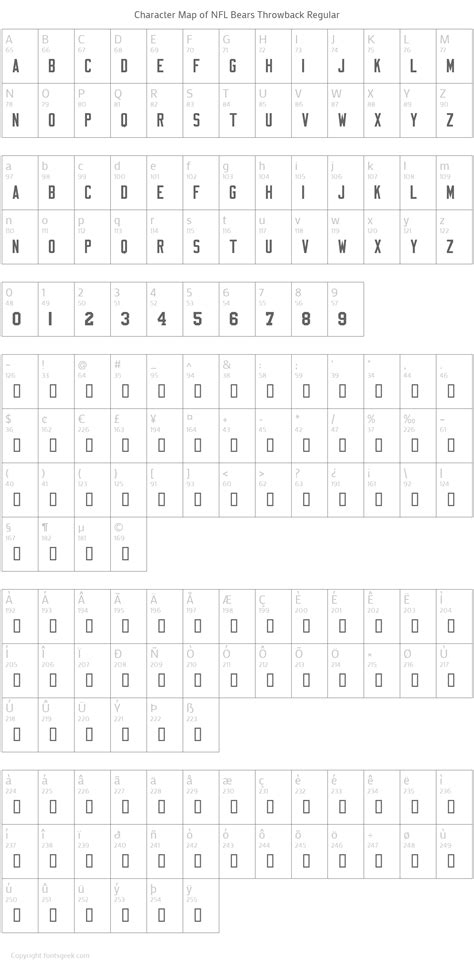
Hey everyone! 👋 If you’re on the hunt for a killer throwback font that screams vintage vibes and undeniable cool, then you’ve absolutely stumbled upon the right place. Today, we’re diving headfirst into the world of the Infl Bears Throwback font – a typeface that’s been making waves for its retro charm and incredible versatility. And the best part? You can get your hands on it completely FREE ! 🙌 This is your golden ticket to elevate your designs, whether you’re working on a personal project, sprucing up your social media, or even crafting professional marketing materials. So, buckle up, because we’re about to explore everything you need to know about the Infl Bears Throwback font, including how to snag that free download and unleash its potential.
First things first, why is this font so darn popular, you ask? Well, it’s all about that nostalgic feel. The Infl Bears Throwback font perfectly captures the essence of classic sports jerseys, vintage logos, and old-school signage. It’s got that bold, slightly distressed look that instantly grabs attention and adds a touch of authenticity. It’s like a time machine for your designs, taking you back to a golden era of design and typography. It’s the kind of font that makes you want to reach for a root beer float and a pair of high-top sneakers. Whether you’re designing a retro-themed website, creating eye-catching posters, or even just adding a bit of flair to your personal projects, this font has got you covered. Plus, the fact that you can get this awesome font for free is just the icing on the cake, right?
Why Infl Bears Throwback Font is a Design Superstar
Alright, design enthusiasts, let’s talk about why the Infl Bears Throwback font is not just another font, but a design superstar . 🌟 It’s more than just a collection of letters and characters; it’s a statement. It’s a throwback to a time when design had a certain grit, a certain boldness, a certain je ne sais quoi . This font carries a unique charm that’s hard to find in today’s more polished, often sterile, design landscape. Let’s dig deeper into the magic behind this font and why it’s a go-to choice for designers.
Firstly, its retro aesthetic is unmatched. In a world saturated with sleek, modern fonts, the Infl Bears Throwback font offers a breath of fresh air. It’s a nod to classic sports lettering, vintage signage, and the overall feel of the good old days. This font instantly adds a touch of nostalgia, making your designs feel authentic and engaging. It’s perfect for projects that aim to evoke a sense of history, fun, or simply a cool, vintage vibe. Imagine creating a poster for a local event, a logo for a retro-inspired brand, or even a social media post that wants to capture attention - this font has the power to do it all! The versatility of this font is also a significant factor. Whether you’re working on a personal project, a professional branding project, or anything in between, the Infl Bears Throwback font can adapt to your needs. This font is incredibly readable, especially in larger sizes, which makes it perfect for headlines, titles, and other prominent design elements. It’s bold enough to make a statement but also balanced enough not to overpower the other design elements. It’s like the perfect spice – it enhances the flavor without taking over the whole dish.
Secondly, the versatility of this font is another winning attribute. The Infl Bears Throwback font isn’t just a one-trick pony. It’s incredibly adaptable. It works well in a variety of design contexts. You can use it in a wide array of projects, from website headers to product packaging, and it always looks fantastic. Designers love this font because it offers them so many options. The font’s design is such that it can easily be paired with different styles of graphics and colors without clashing. Its bold style and readability make it suitable for various projects, whether they’re print or digital.
In essence, the Infl Bears Throwback font isn’t just a font; it’s a design tool that empowers creativity and provides a unique aesthetic. It brings a retro vibe to any design, making it stand out from the crowd. So, whether you are trying to produce materials for your personal projects or your professional works, make sure you download the font and start designing!
How to Perfectly Use the Infl Bears Throwback Font
Alright, design buddies! Now that you’ve got your hands on the Infl Bears Throwback font (and hopefully you’ve already snagged that free download !), let’s talk about how to make the most of it. Knowing how to use a font is just as important as having the font itself. Let’s explore some tips and tricks to perfectly integrate this throwback beauty into your design projects and make them truly pop. Here’s a guide to ensure you’re using this font like a pro.
First and foremost, consider the context . Where will your design be seen? A website header? A social media post? A poster? The context in which your font is used will determine how you use the font. The Infl Bears Throwback font works best in places where you want to evoke a retro, vintage, or sporty vibe. Think about event posters, sports-related content, or any design that wants to feel a bit old-school. Also, consider the message you want to convey. Is your project fun, nostalgic, or serious? The font’s bold, eye-catching style will instantly draw the viewer’s attention, so make sure that its style matches the message you want to convey. If you’re designing something for a serious business, this font might not be the best choice. On the other hand, if you’re creating a poster for a local event or a promotional ad, the Infl Bears Throwback font will be a wonderful choice.
In short, the Infl Bears Throwback font is an incredible tool for unleashing your creativity. Whether you’re designing posters, logos, social media posts, or anything else, this font offers a unique style that is perfect for any design project. Download it now and get ready to create something awesome!